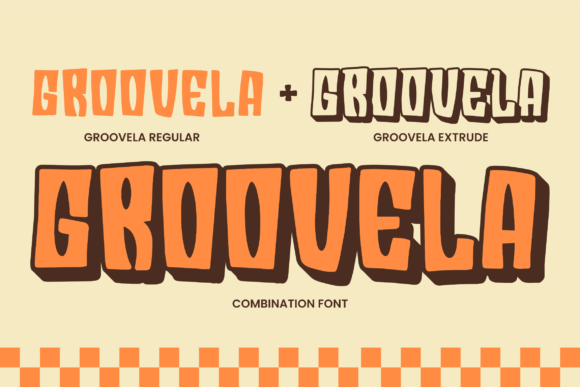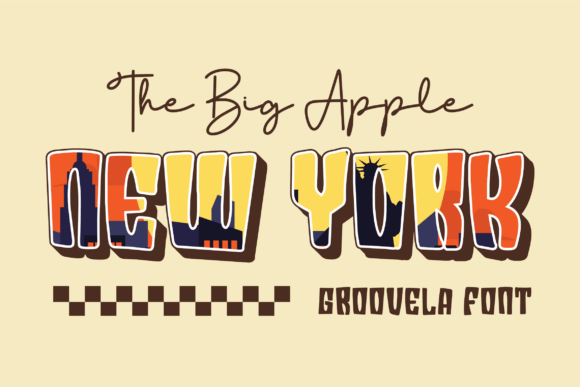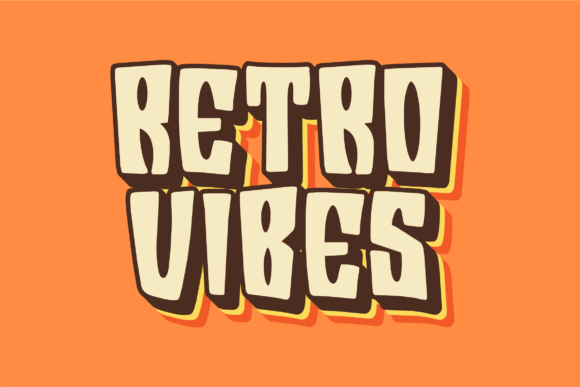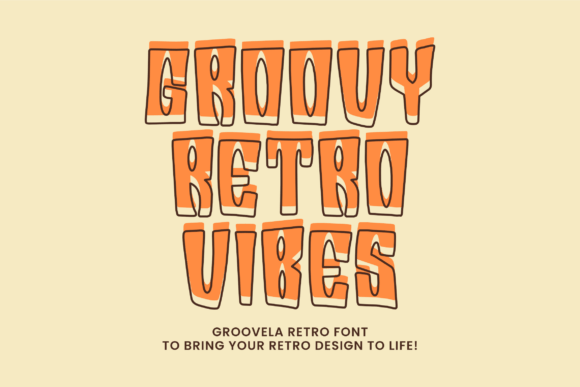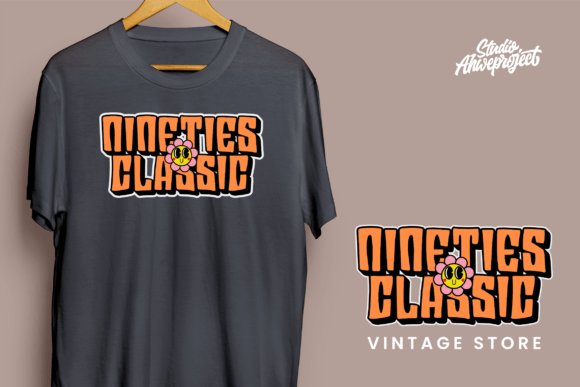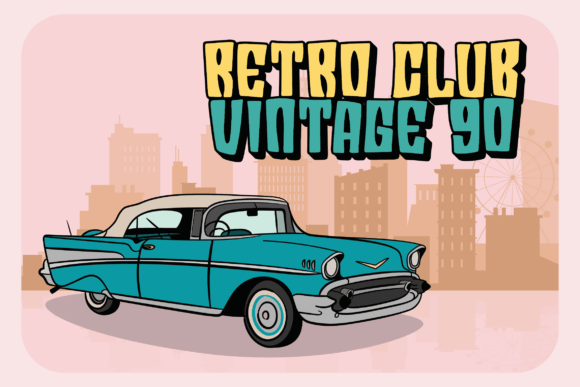
Introducing Groovela Font: The Ultimate Retro Typeface for Vibrant Designs
Are you looking for a font that can add a dash of nostalgia and playfulness to your design projects? Look no further than Groovela Font, a bold and eye-catching retro typeface that’s perfect for creating vibrant and dynamic designs. In this article, we’ll dive into the features and benefits of Groovela, and explore how it can elevate your creative endeavors.
A Unique Combination of Styles
Groovela Font boasts a unique combination of regular and extrude styles, making it a versatile and flexible choice for designers. The regular style features chunky, rounded shapes that evoke the spirit of the 70s, while the extrude style adds an extra layer of depth and dimension to your text. This dual-style approach allows you to experiment with different looks and feels, ensuring that your designs always stand out.
Perfect for Eye-Catching Headlines and Posters
Groovela Font is specifically designed for crafting eye-catching headlines, posters, and branding materials. Its bold and playful design makes it perfect for grabbing attention and conveying a sense of energy and excitement. Whether you’re designing a poster for a music festival, a social media graphic, or a brand logo, Groovela is sure to make your text pop.
Nostalgic Vibes and Vintage Inspiration
Groovela Font is heavily influenced by the design trends of the 1970s, a era known for its funky and playful aesthetic. The font’s chunky, rounded shapes and vintage-inspired design evoke the spirit of the decade, making it an ideal choice for designers seeking a retro look. Whether you’re creating a design for a client or working on a personal project, Groovela’s nostalgic vibes are sure to bring a smile to your face.
Versatility and Flexibility
One of the key benefits of Groovela Font is its versatility and flexibility. The font can be used for a wide range of design projects, from branding and advertising to packaging and web design. Its bold and playful design makes it perfect for headlines, titles, and short texts, while its clear and legible design ensures that it can be used for longer texts and body copy.
Adding a Funky and Groovy Touch to Your Designs
Groovela Font is more than just a font – it’s a design statement. Its funky and groovy design adds a touch of personality and whimsy to your designs, making them stand out from the crowd. Whether you’re designing for a client or working on a personal project, Groovela’s unique and playful design is sure to bring a dash of excitement and energy to your work.
Why Choose Groovela Font?
So why choose Groovela Font for your design projects? Here are just a few reasons:
- Unique and playful design: Groovela’s bold and playful design makes it perfect for creating eye-catching headlines and posters.
- Versatility and flexibility: The font can be used for a wide range of design projects, from branding and advertising to packaging and web design.
- Nostalgic vibes and vintage inspiration: Groovela’s vintage-inspired design evokes the spirit of the 1970s, making it an ideal choice for designers seeking a retro look.
- Easy to read and legible: Despite its bold and playful design, Groovela is clear and legible, making it perfect for use in a variety of design projects.
In conclusion, Groovela Font is a bold and playful retro typeface that’s perfect for adding a dash of nostalgia and energy to your design projects. Its unique combination of regular and extrude styles, versatility and flexibility, and nostalgic vibes make it an ideal choice for designers seeking a funky and groovy look. Whether you’re designing a poster, a brand logo, or a website, Groovela is sure to bring a touch of excitement and personality to your work.
Get Ready to Groove with Groovela Font!